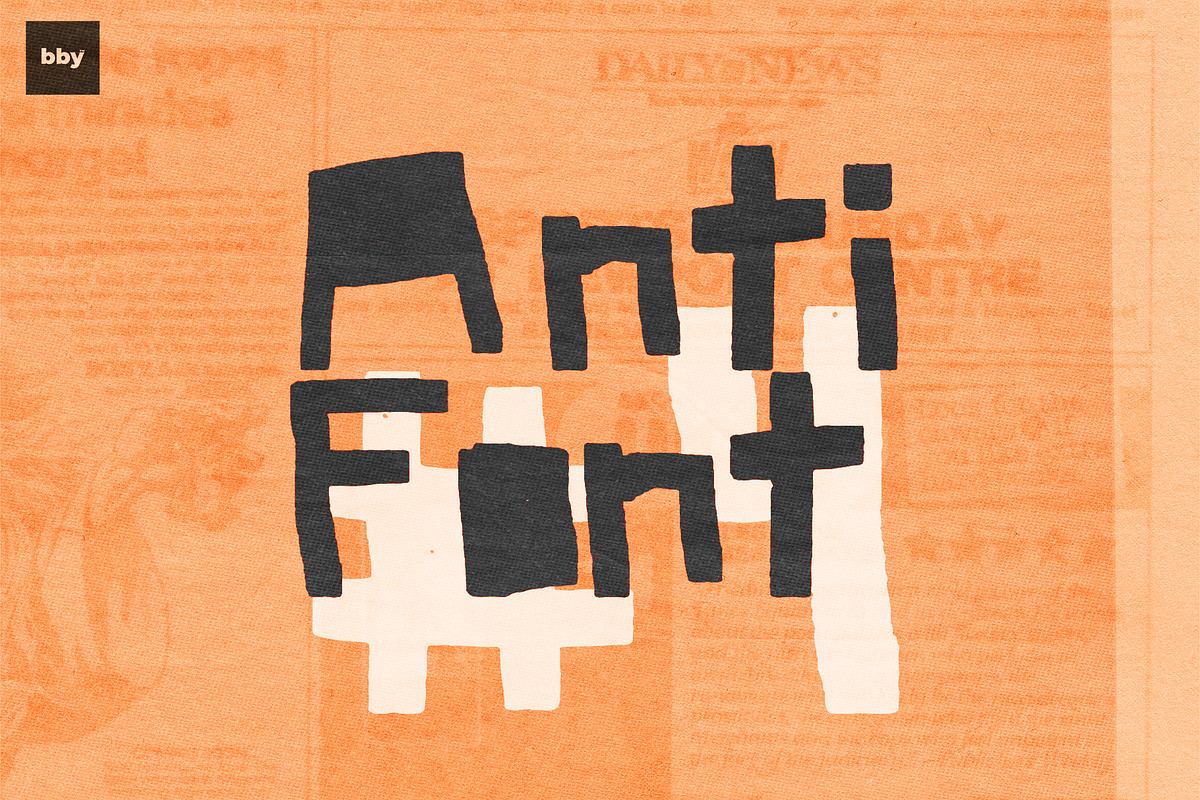
Anti-Font #4 Free Download
Anti-Font #4 Free Download is a bold, experimental typeface that breaks traditional design rules. With distorted shapes, unconventional letterforms, and a deconstructed aesthetic, this font is perfect for creating edgy, avant-garde designs. It’s ideal for posters, branding, album covers, and digital art projects that embrace uniqueness and nonconformity.
Using the Anti-Font #4 Free Download brings a rebellious and creative touch to your typography. Whether you’re working on graphic design, music posters, or modern art projects, this font makes a strong statement and pushes the boundaries of conventional type design.